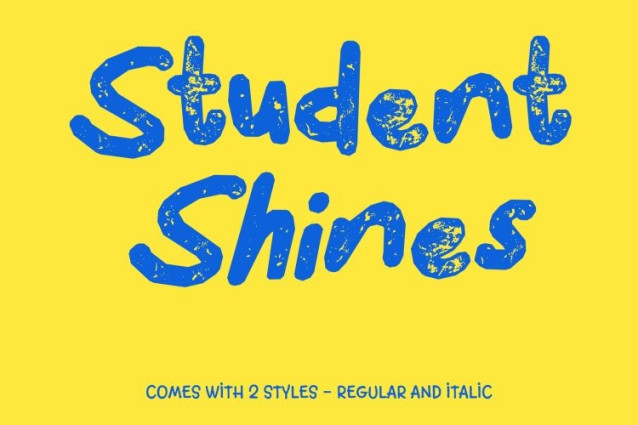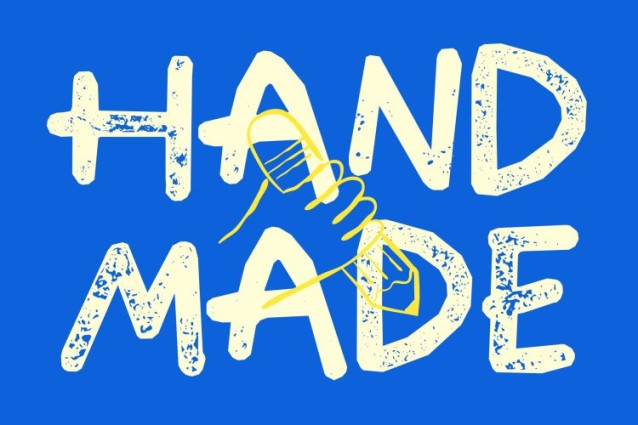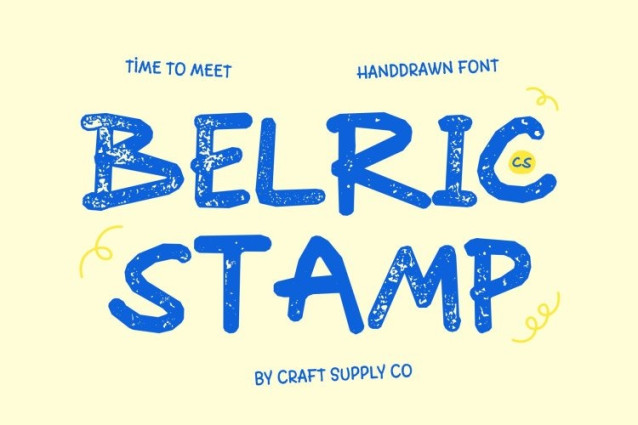
CS Belric Stamp Font
CS Belric Stamp Font – This is a cute handwritten font that radiates joy and friendliness, now enhanced with a subtle stamped texture. Its rounded shapes and soft, flowing strokes maintain their playful energy, while gentle ink variations and lightly distressed edges introduce a handcrafted, print-inspired character. The result is a font that feels lively, warm, and delightfully authentic.
Rounded Forms with Textured Warmth
The smooth sans serif curves create a welcoming and expressive rhythm. With the stamped effect, each letter gains added depth and tactile charm, making the typography feel more personal and heartfelt. This combination enhances its friendly impression while keeping the design clean and approachable.
Personal Touch with Genuine Character
Its natural handwritten quality brings a sense of sincerity and individuality to every word. The subtle imperfections from the stamp finish reinforce the human touch, making it perfect for greeting cards, children’s materials, playful branding, and engaging digital content that seeks emotional connection.
Perfect for Fun, Youthful, and Creative Designs
From party invitations and kids’ projects to cheerful brand identities and social media visuals, delivers personality in every letter. Its blend of cute handwritten style and vintage-stamped texture ensures each design feels joyful, expressive, and memorably charming.